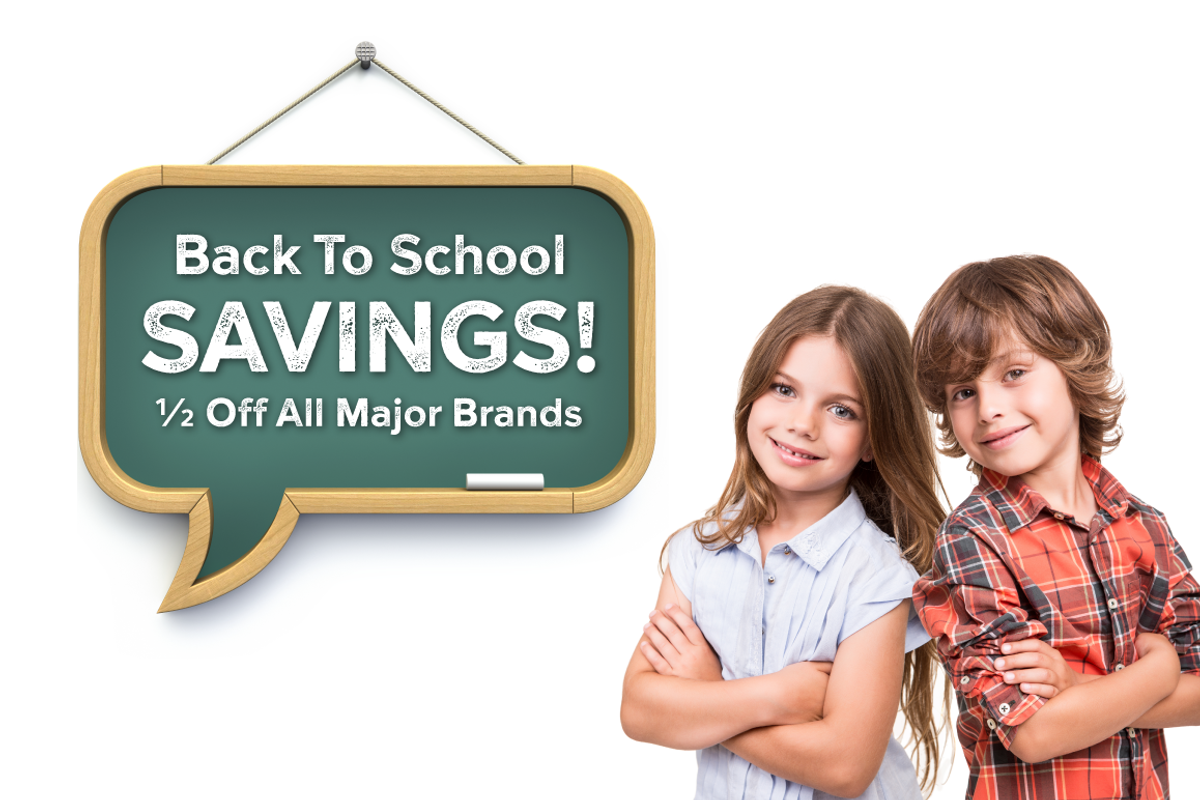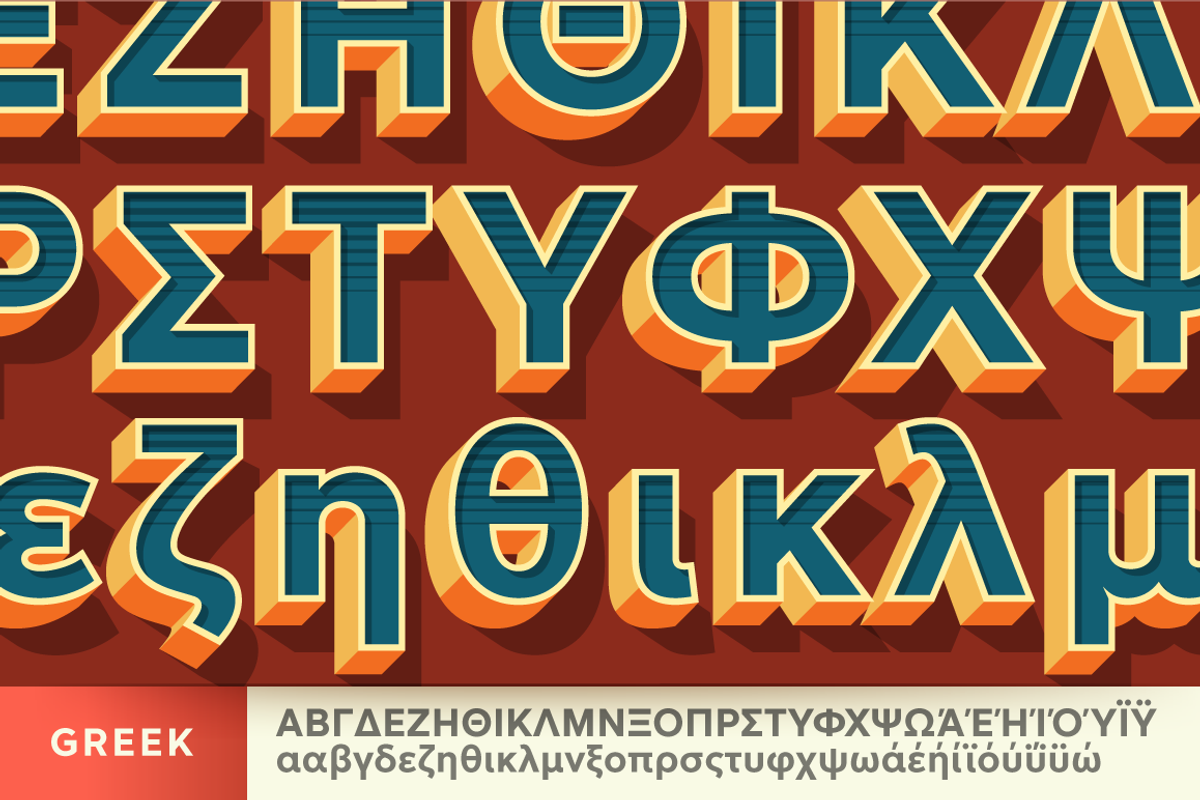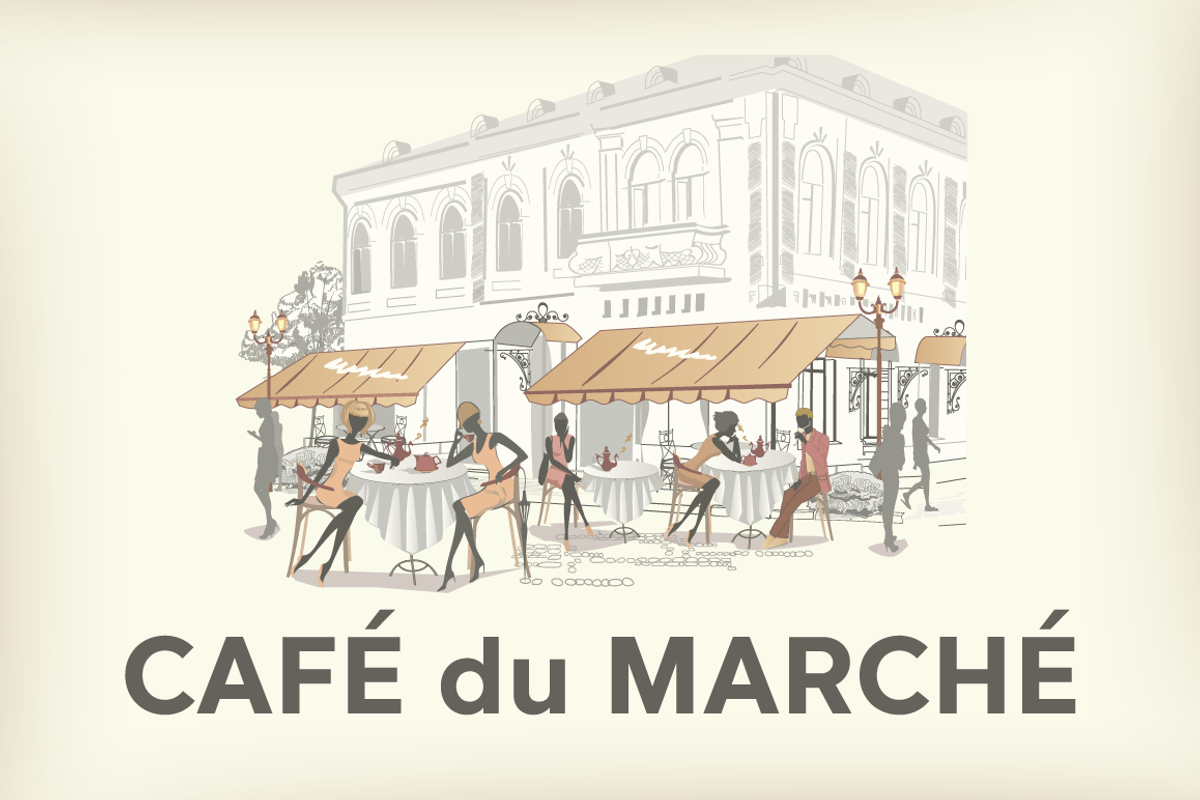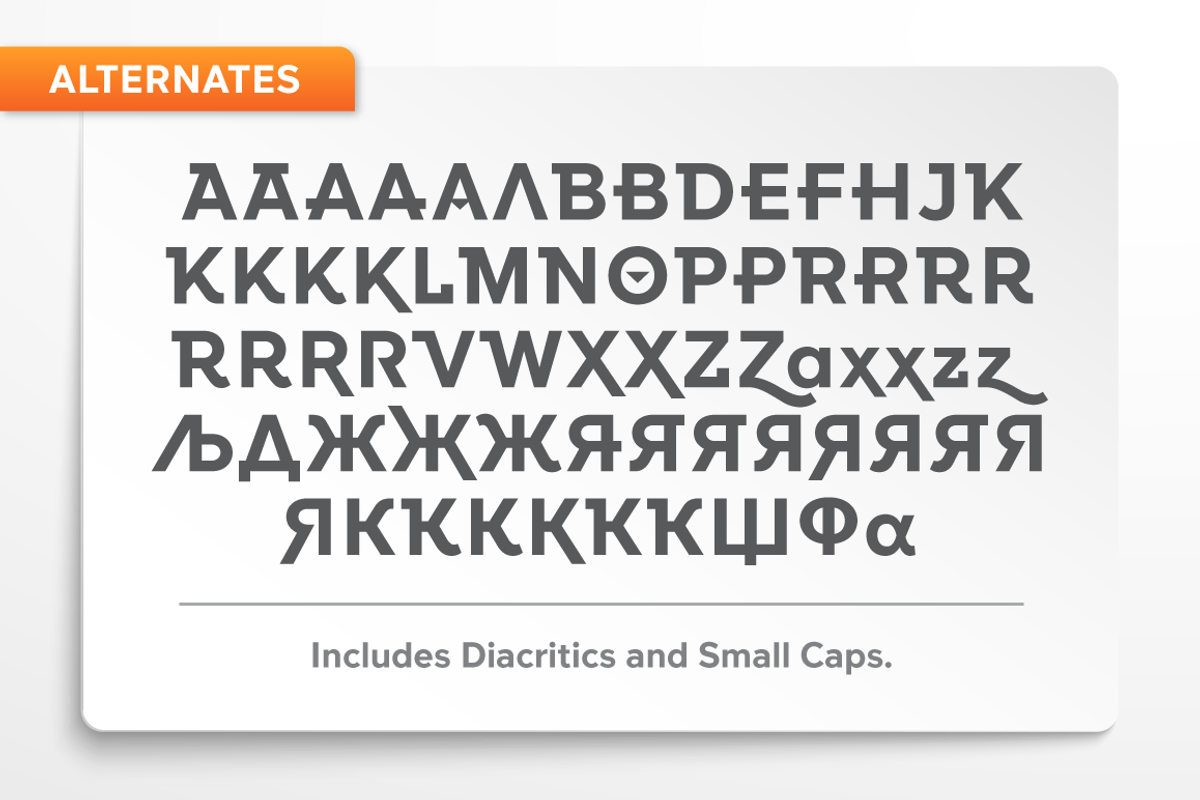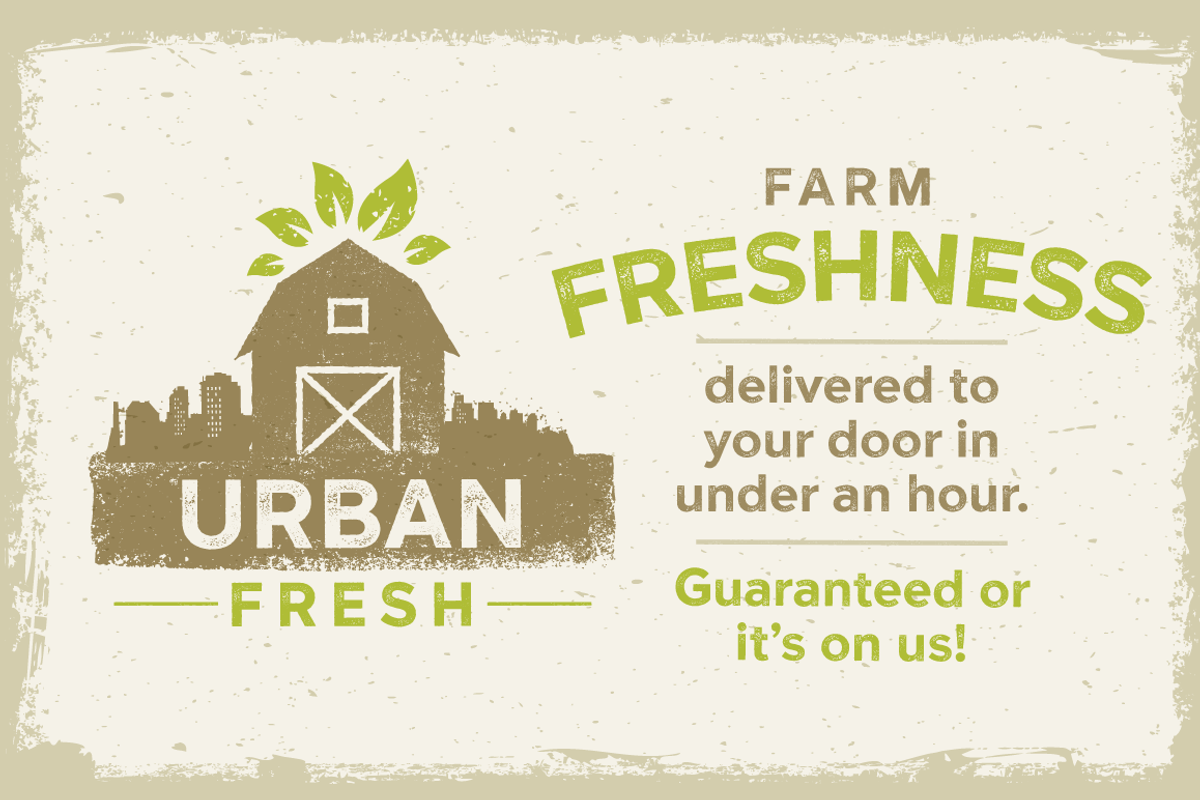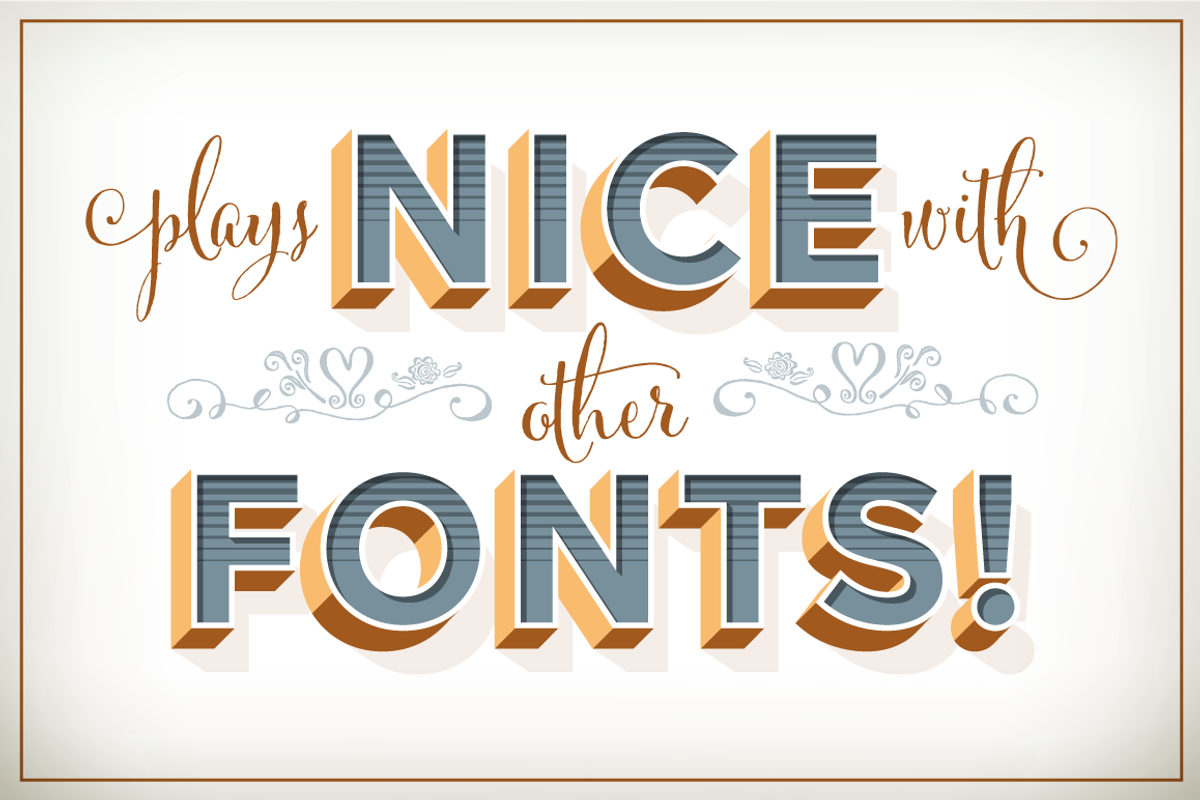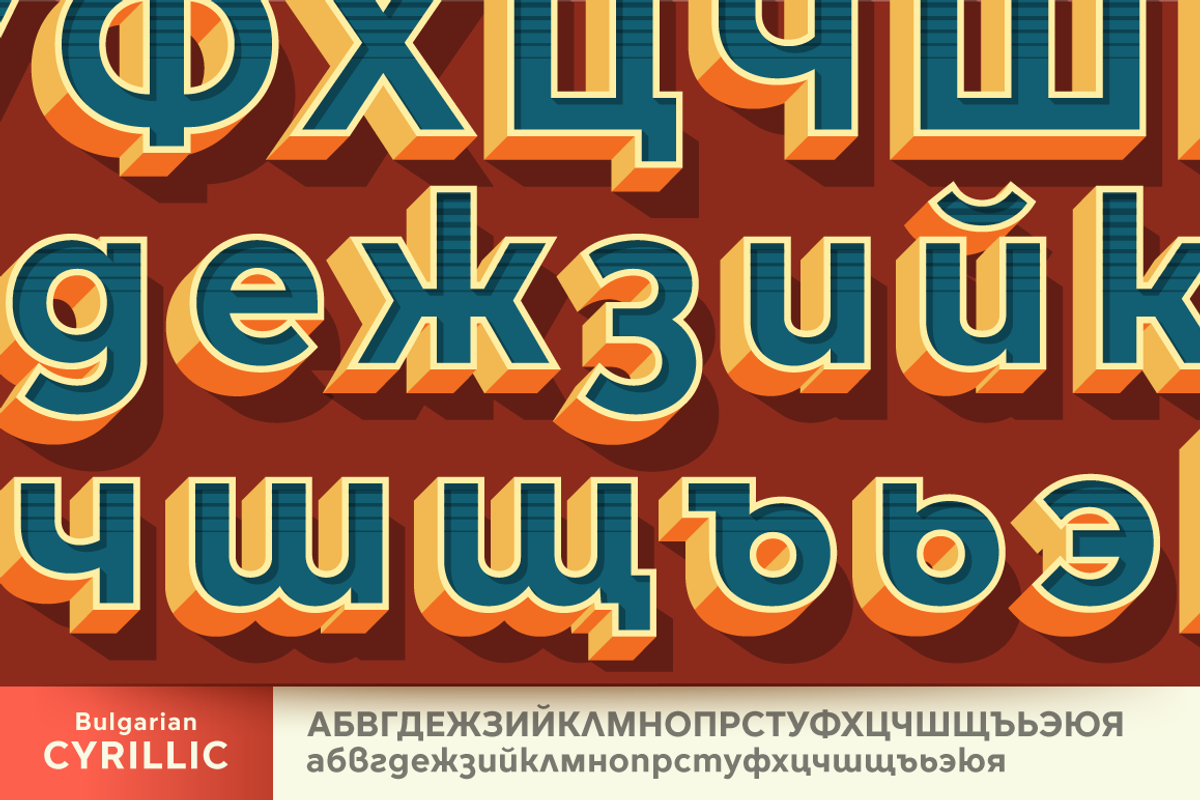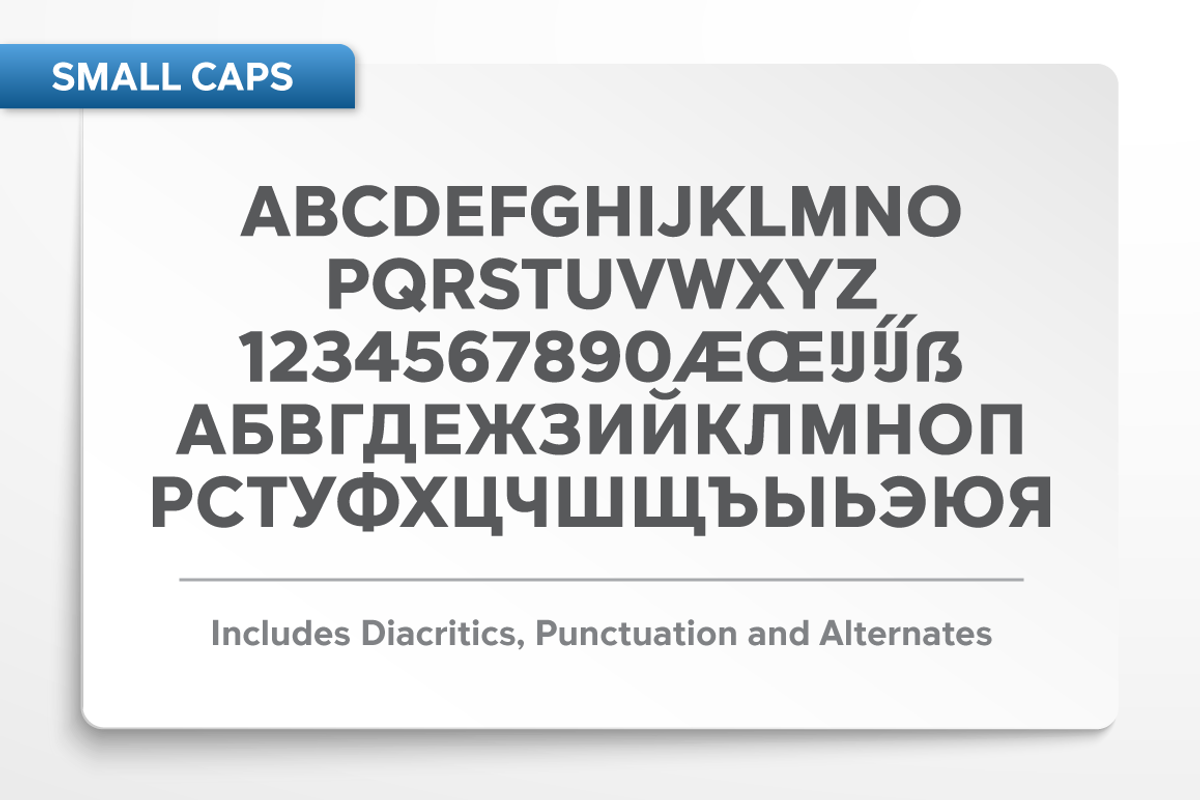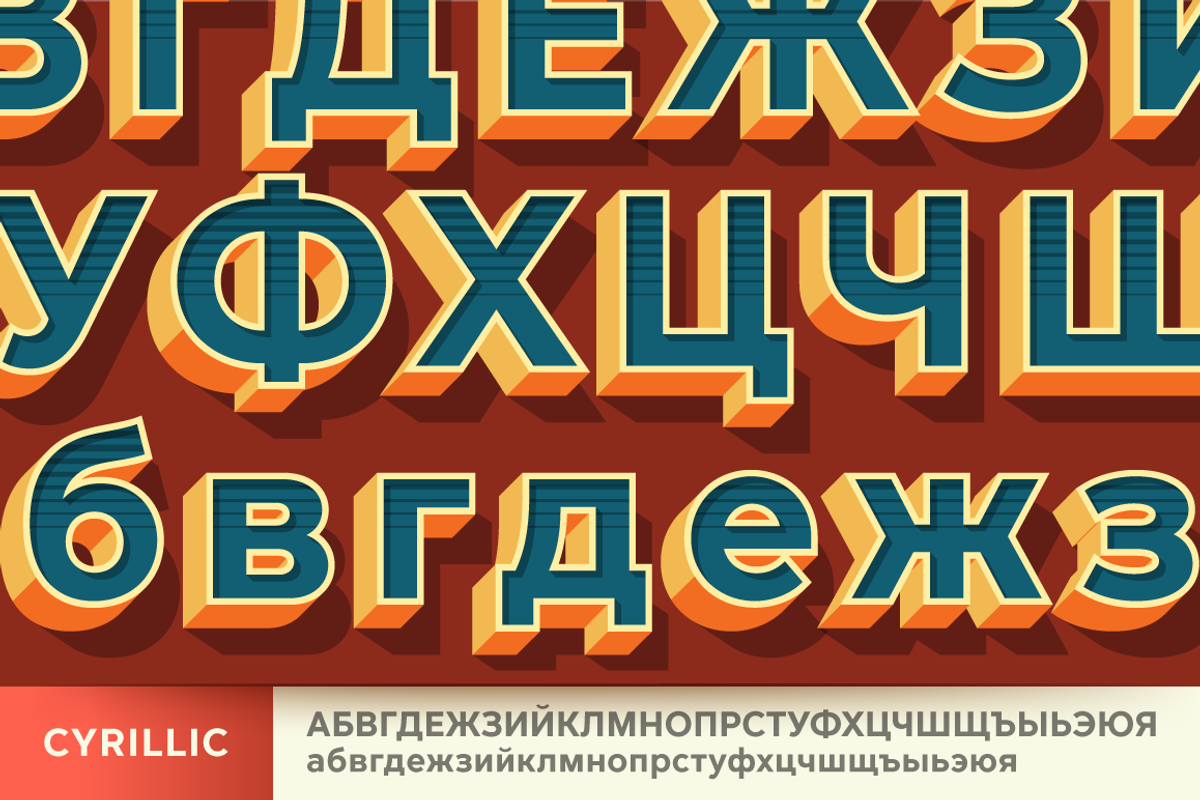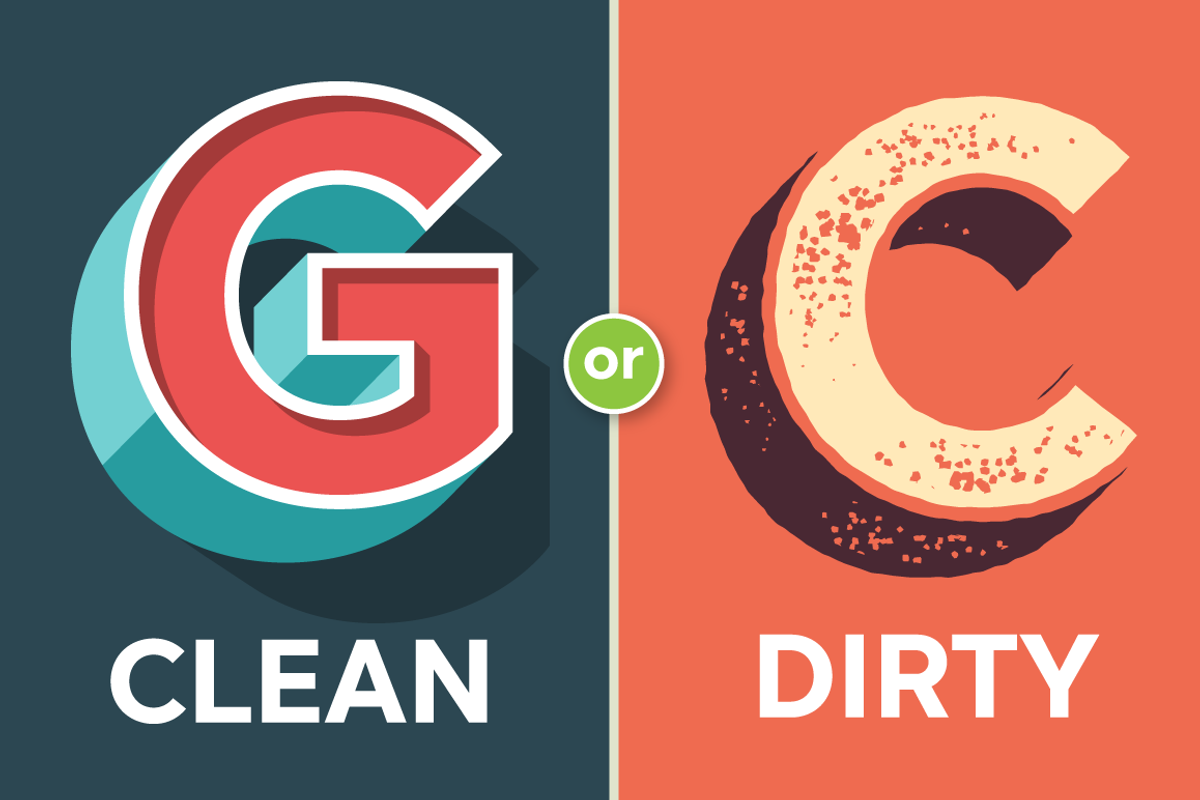
Versatile 14 Layered Font Combo Pack
What is Versatile?
How to use Versatile Effectively
Create endless possibilities with this amazingly affordable design package. Each style contains 7 layers! You'll get the base font, cast shadow, drop shadow, highlight, outline, inside shadow, and inset gradient . Stacking these layers allows you the designer to create eye catching logos and designs.
This package contains Versatile Bold and Versatile Rust. Versatile Bold is not just for the Graphic Designer. It’s well suited for the Sign Maker, Cricut and Silhouette users, and anyone else who uses a vinyl plotter. It weeds beautifully in cut vinyl. Its different layers allow the user to stack multi-colored vinyl to create one a kind signs and displays.
Versatile Bold is ideally suited for advertising and packaging, logo, branding and creative industries, poster and billboards, signage as well as web and screen design.
- Seven Fonts included in each style pack containing: Regular, Cast, Shadow, Highlight Shadow, Outline, Inside Shadow, and Lines.
- 1,462 Glyphs (Characters) in each font for a total of 10,234 Glyphs per style pack.
- Languages supported including Cyrillic, Bulgarian Cyrillic and Greek.
- A massive library of Latin, Extended Latin and Cyrillic Alternates including their Diacritic and Small Cap counterparts.
- Superscripts, Subscripts, Numerators, Denominators, and Scientific Inferiors.
- Small Caps in Latin, Extended Latin and Cyrillic include Numbers, Punctuation, Diacritics and Alternates.
- Extended currency symbols including Bitcoin.
- Fun assortment of speech bubbles.
- Unlimited fractions.
- All 1,462 Glyphs have their display equivalents.
Versatile makes Typography fun!